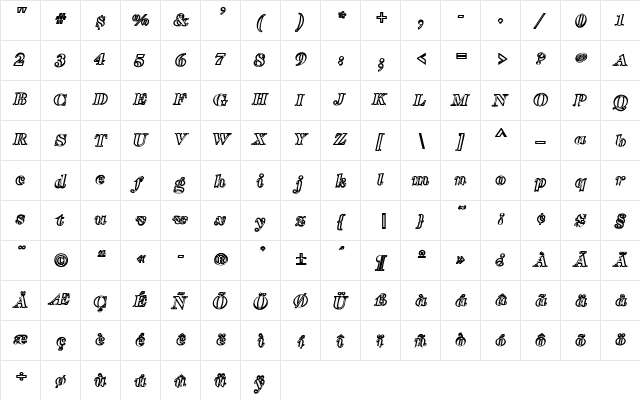
Grind Regular Font Preview
Grind Regular
Grind Regular Font Details
Design Context for Grind Typeface
Grind is a composed and adaptable typeface that performs quietly and consistently across a wide range of design contexts.